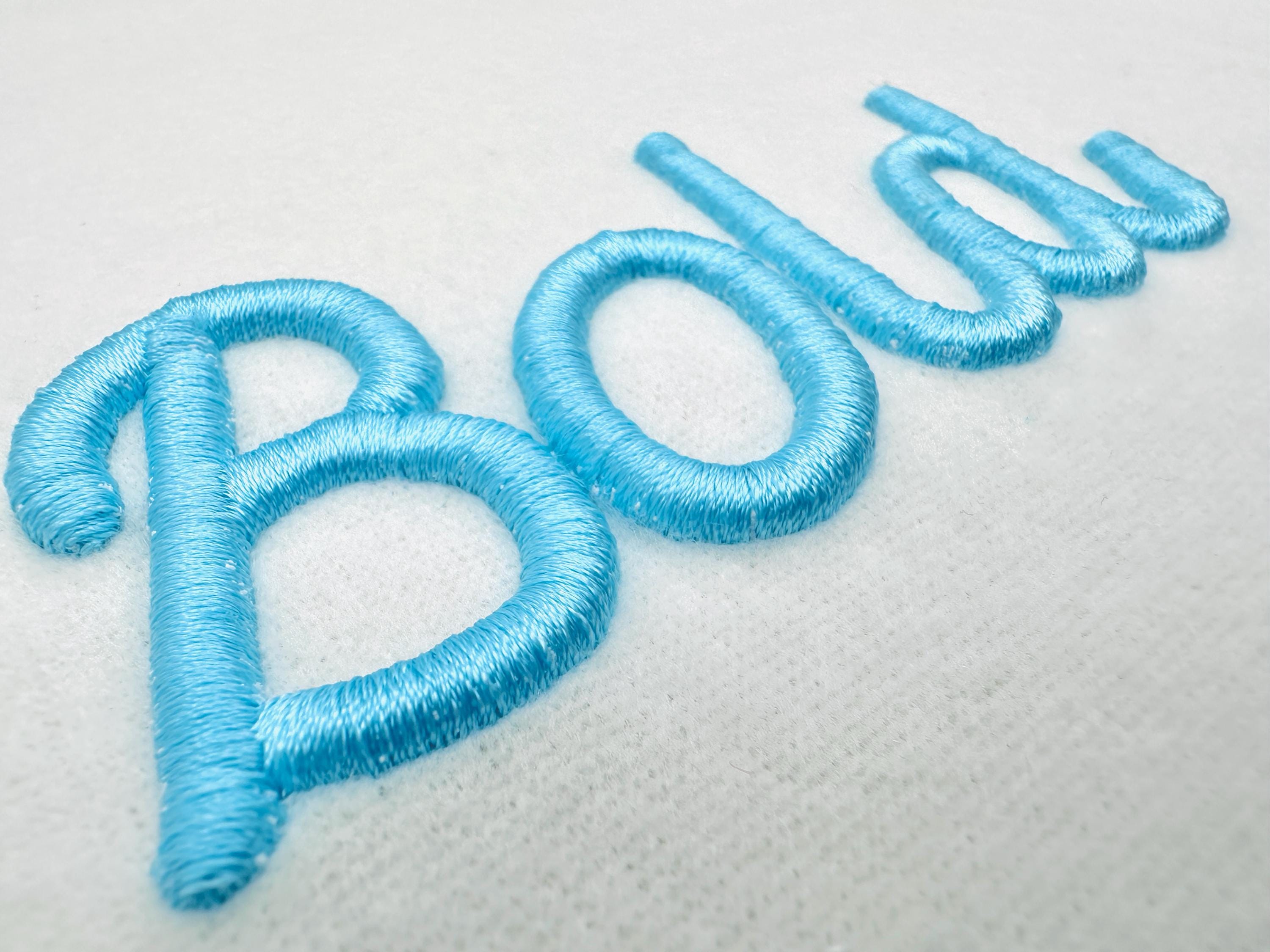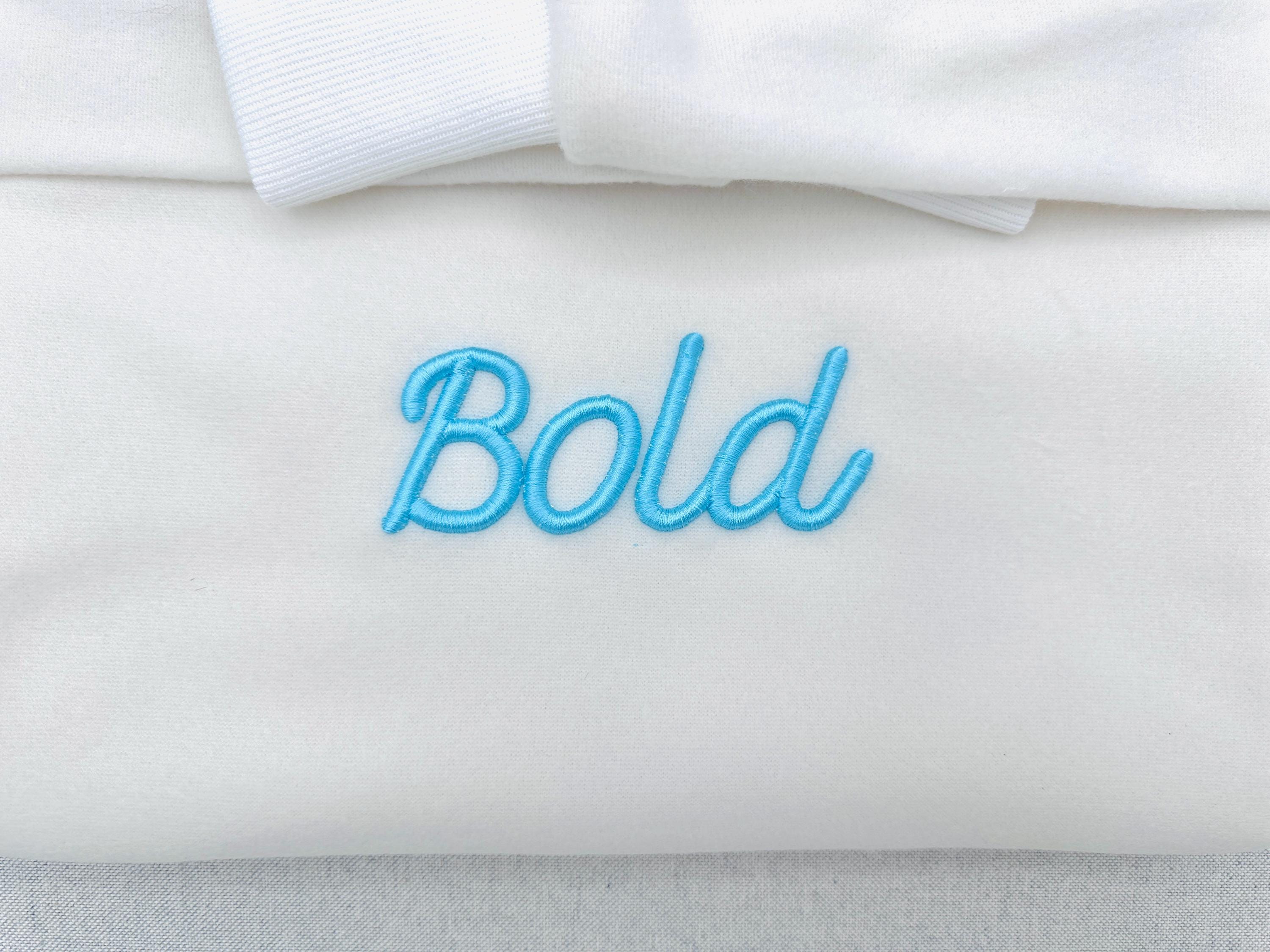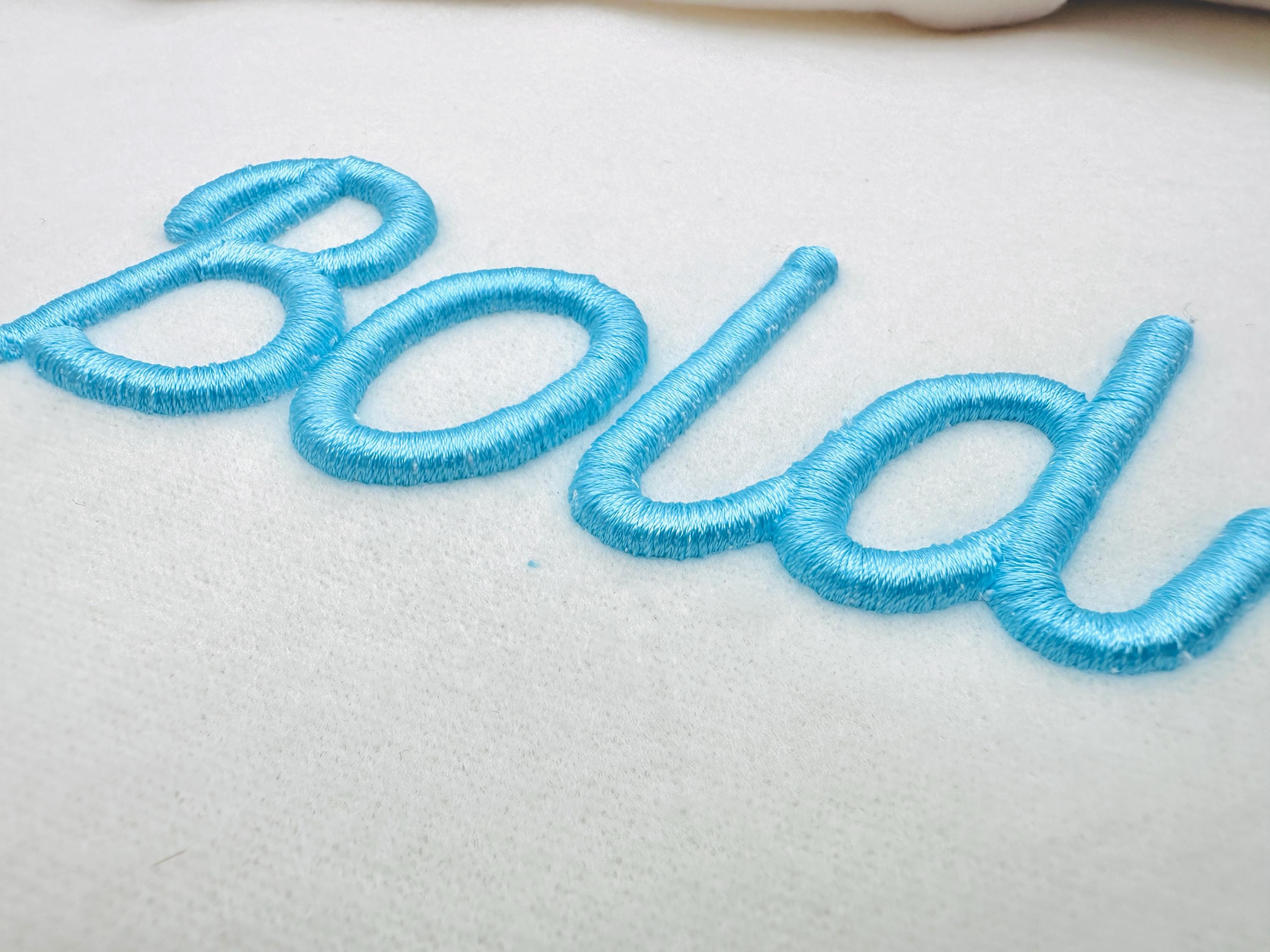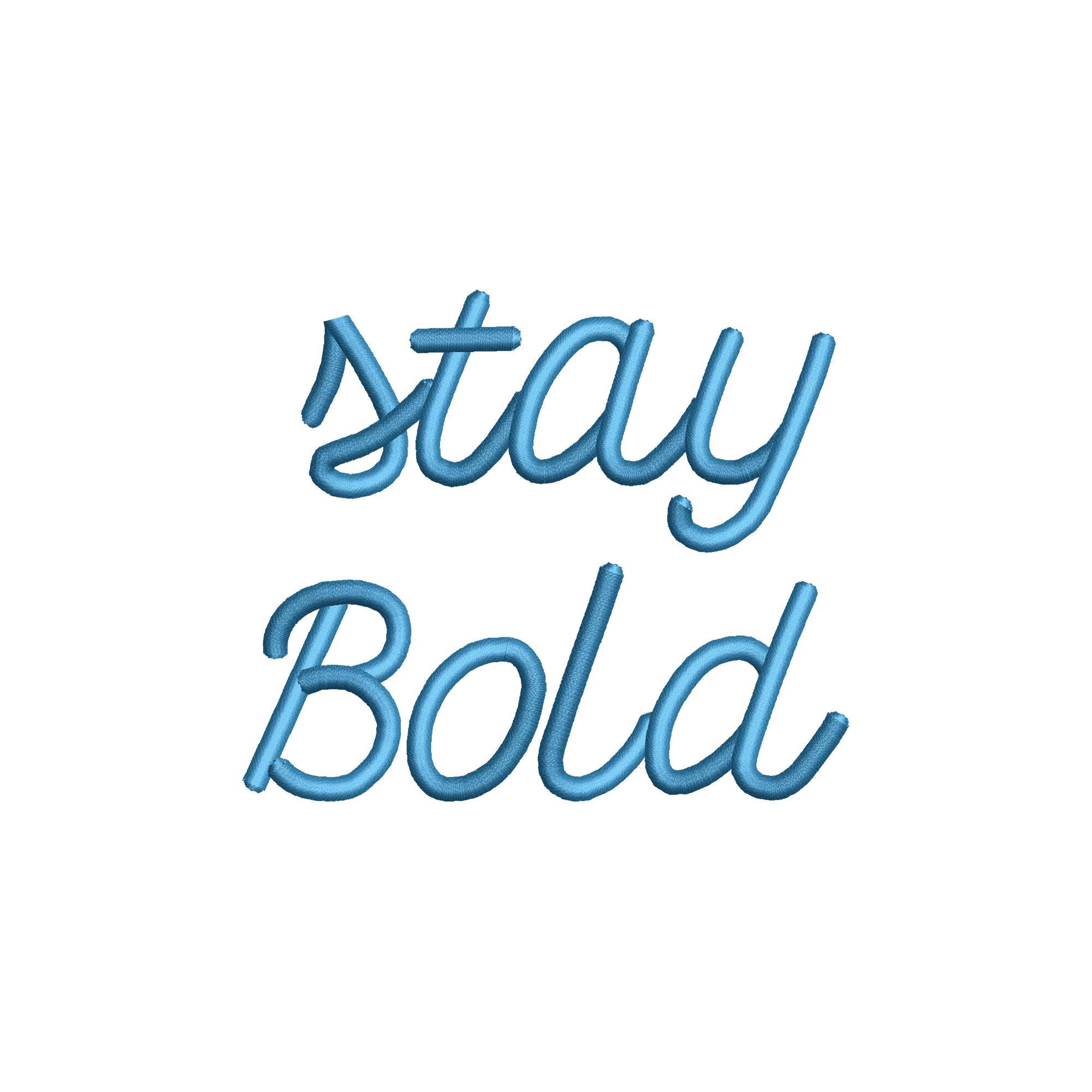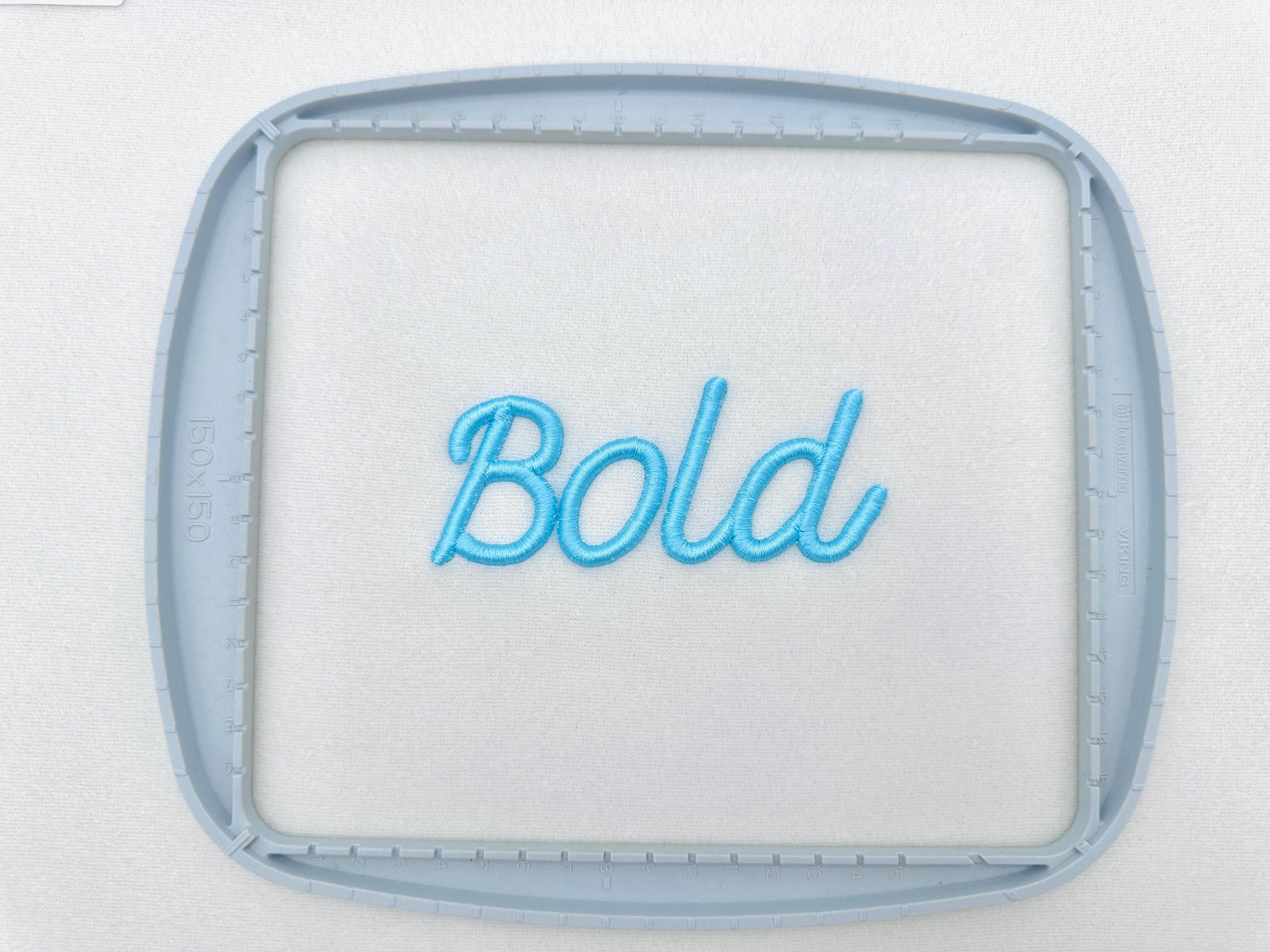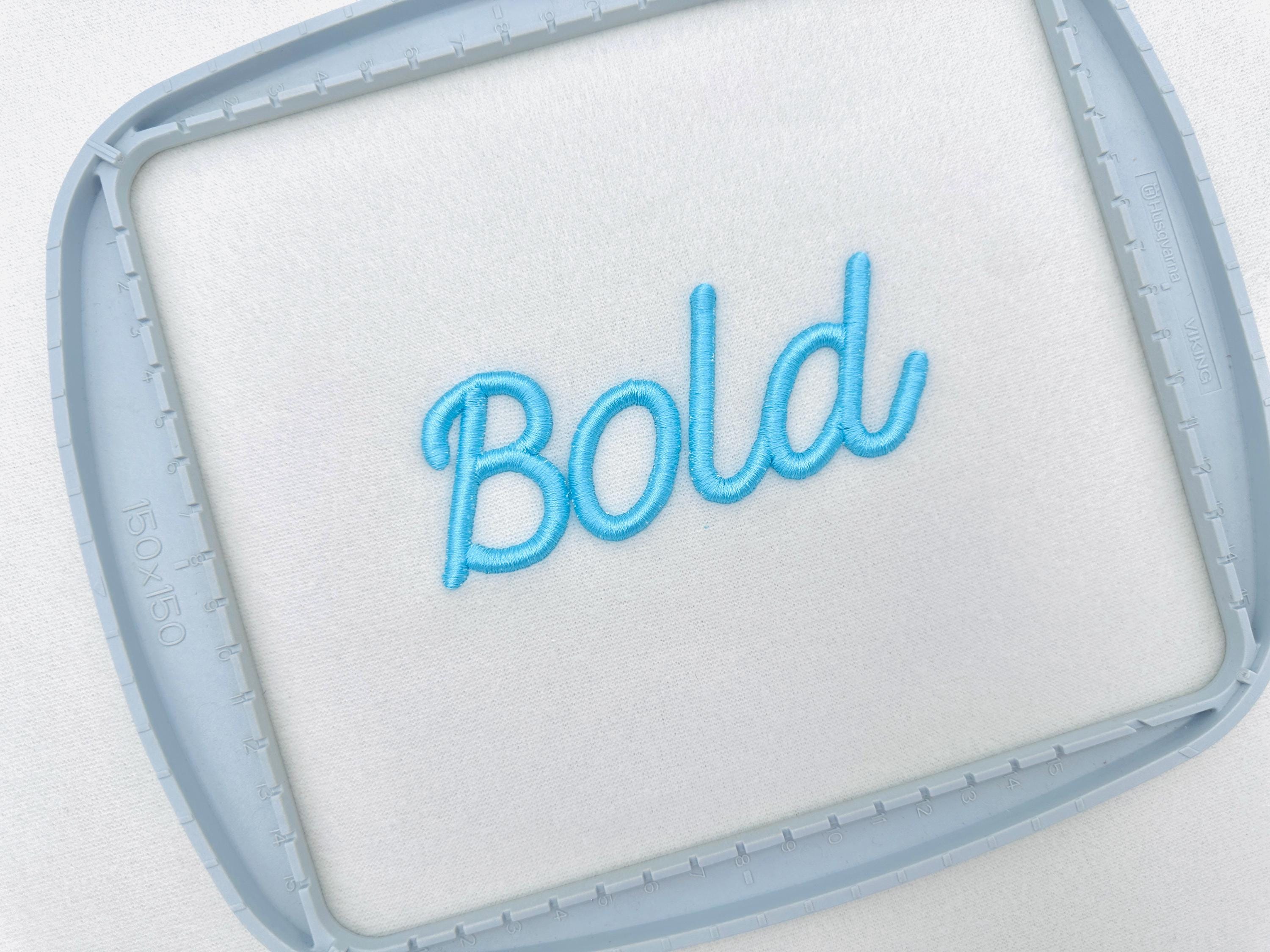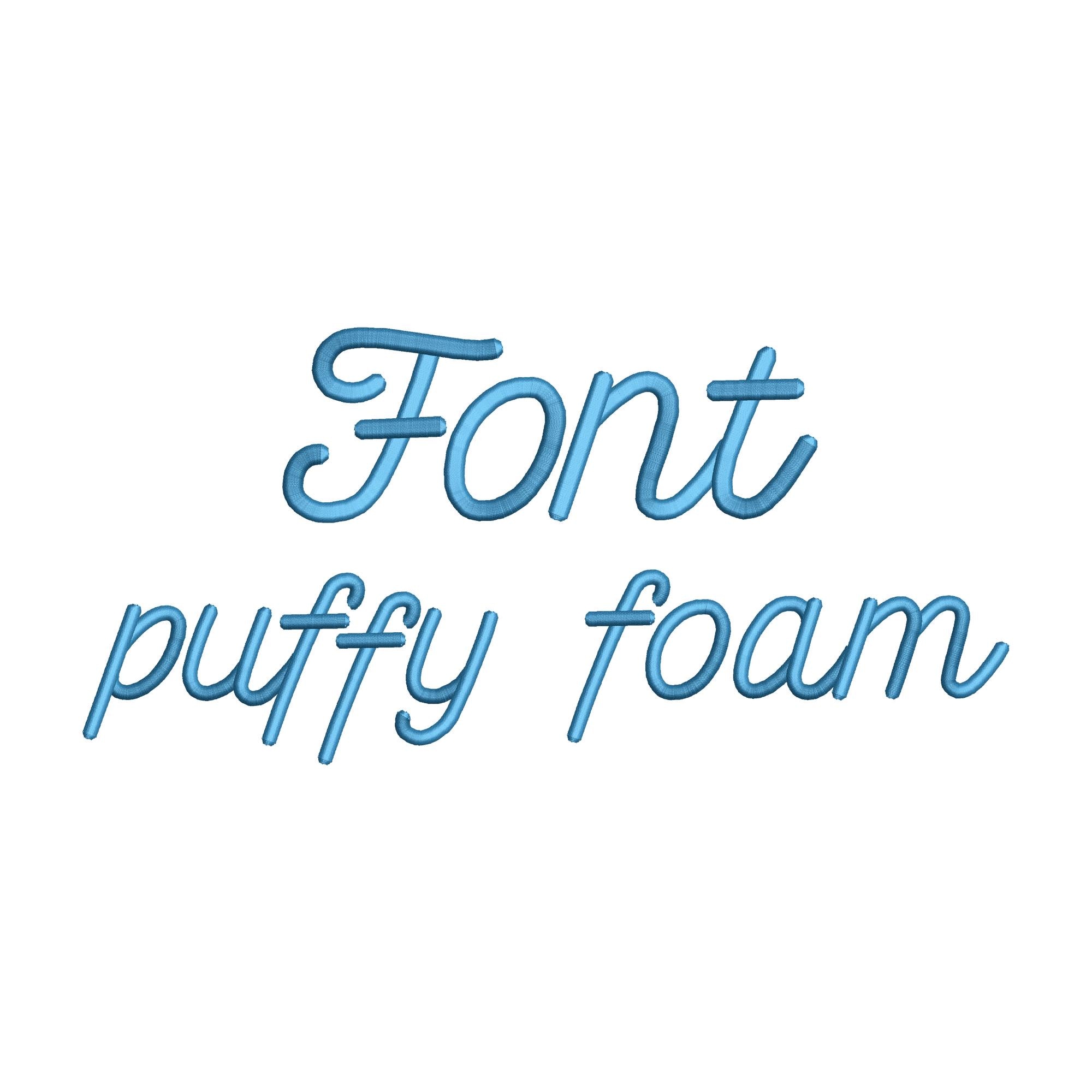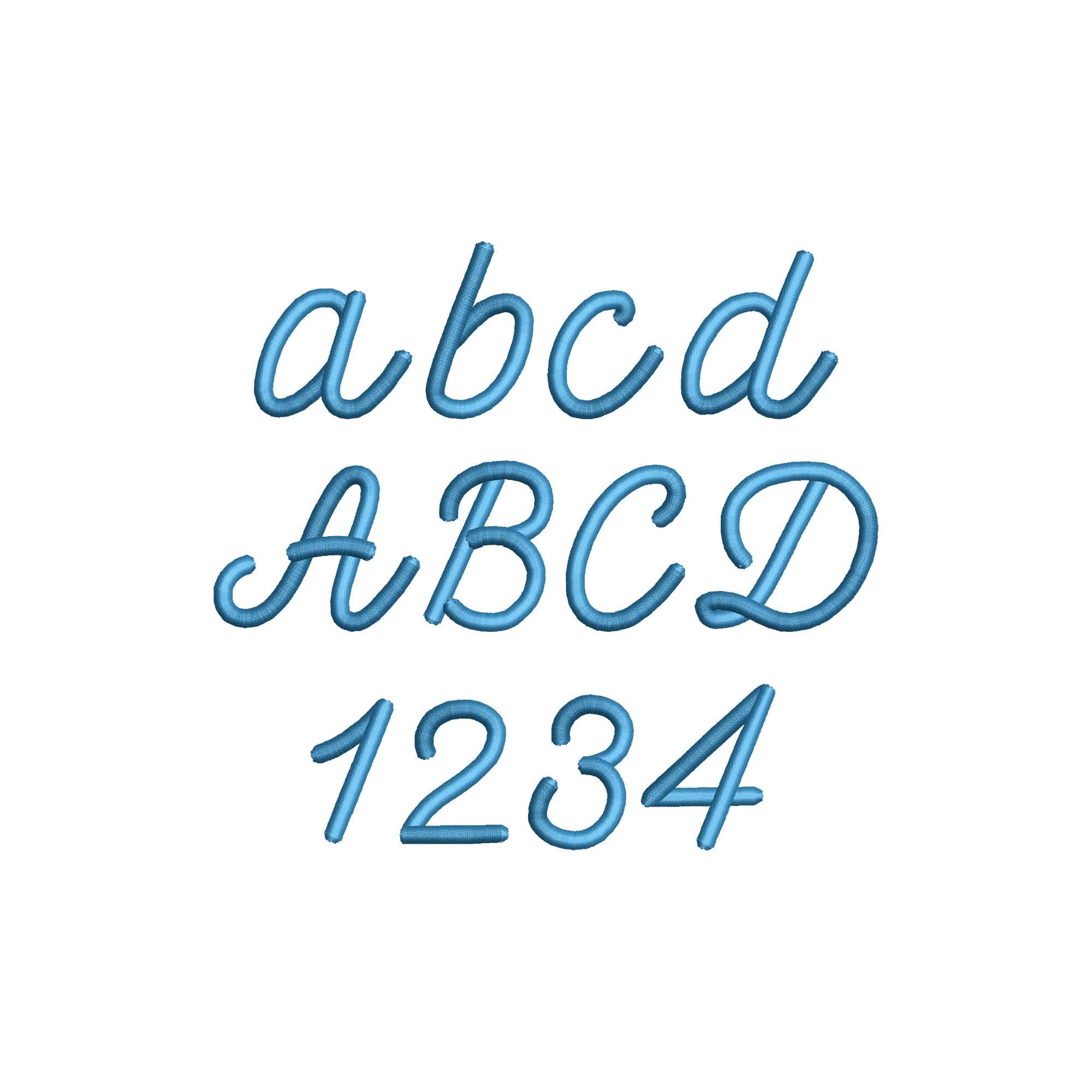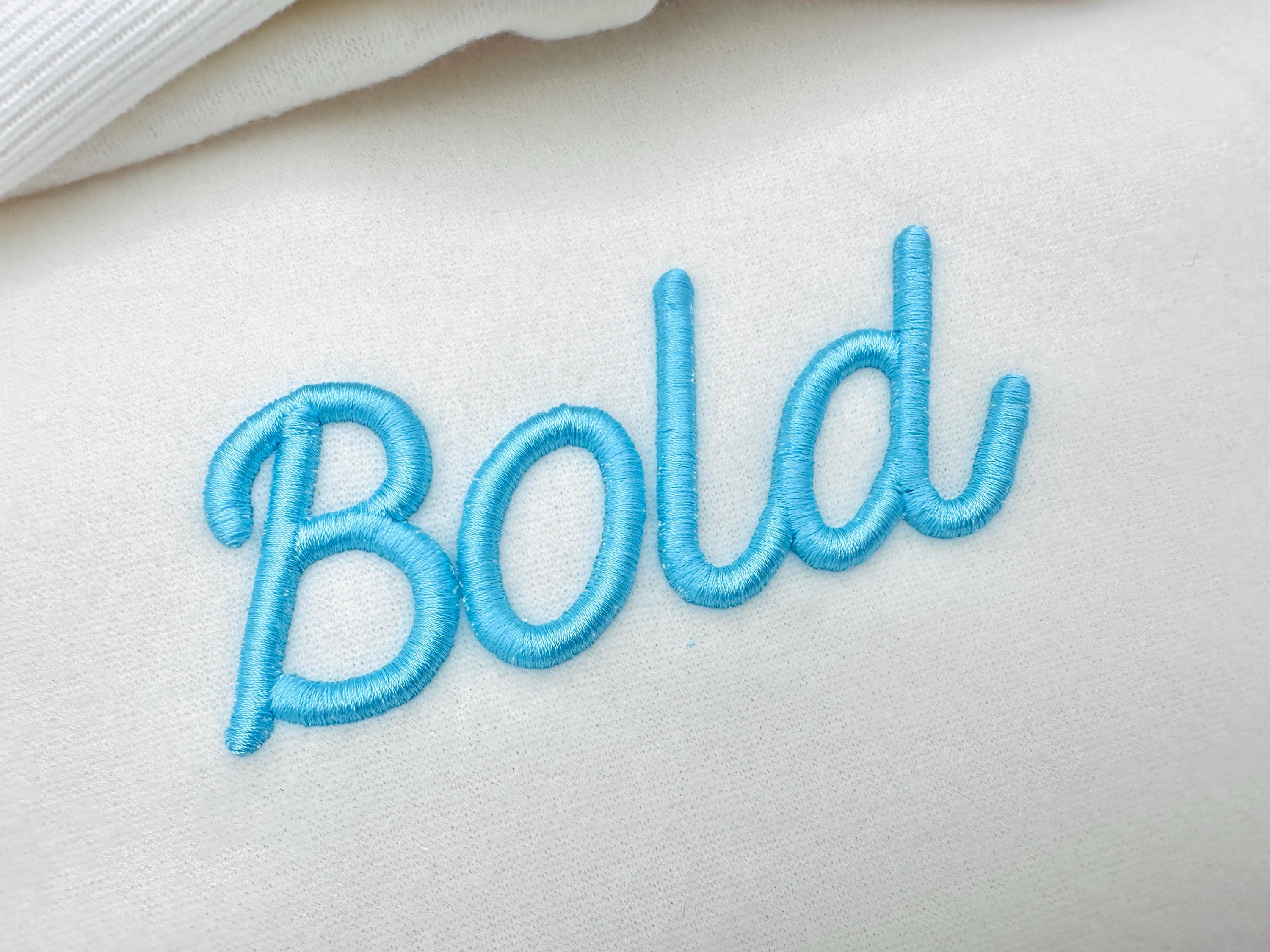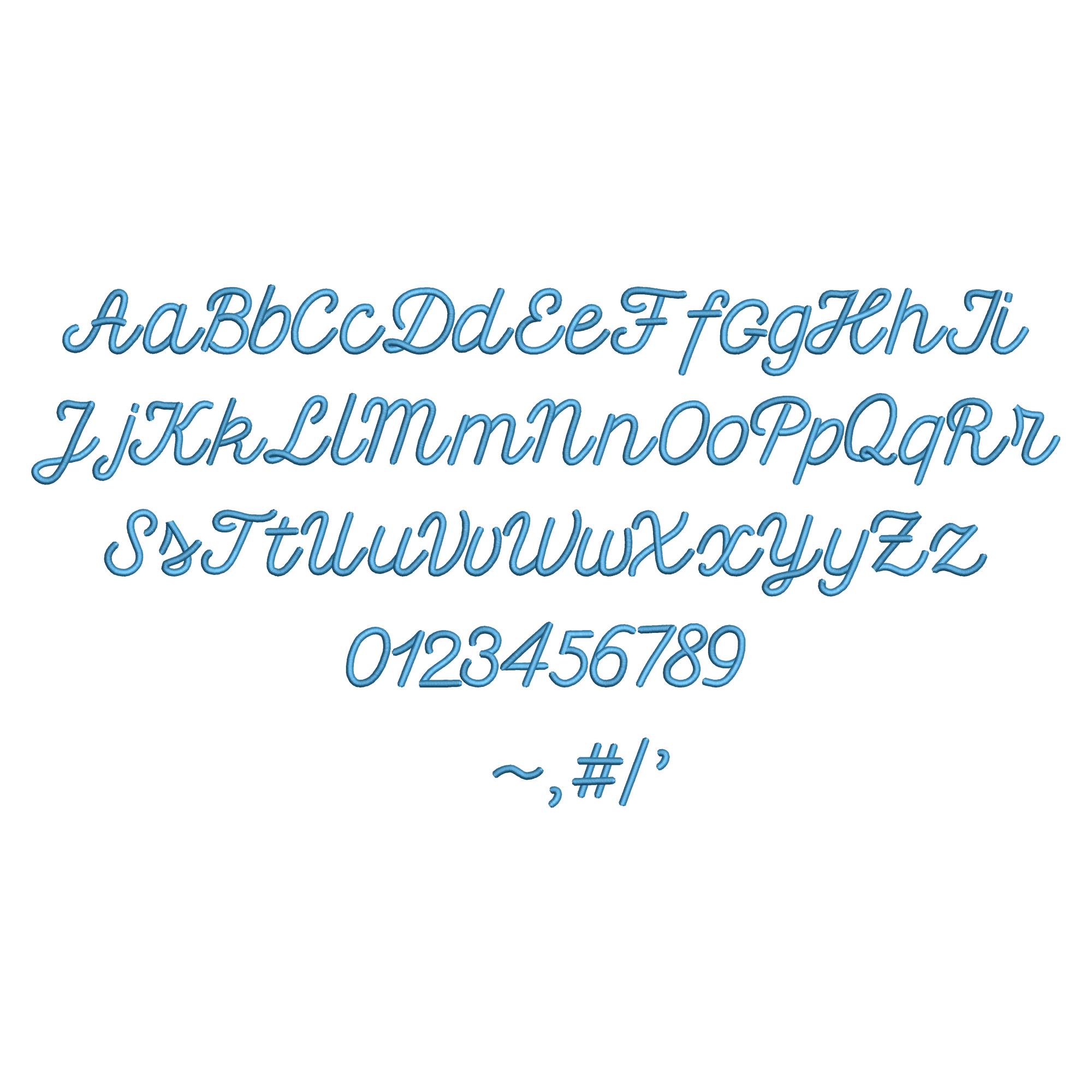
Puff Embroidery Font machine embroidery designs 3D raised puffy foam handwritten Alphabet Monogram assorted sizes 1 up to 2.3 inch BX
Whole alphabet Aa-Zz uppercase and lowercase letters, numbers 0-9, and punctuation.